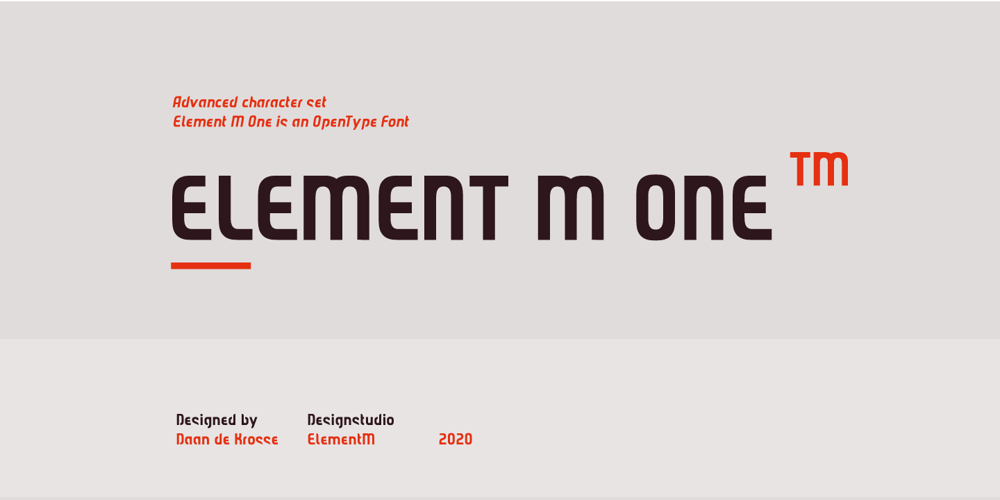
Element M One
Element M One font
Element M One Font Family was designed by Daan de Krosse and published by ElementM. Element M One contains 2 styles and family package options. Element M One is a clear and bright typeface with a touch of futurism. Specially made for signing, posters, covers and corporate identities. Also a perfect typeface for headlines.